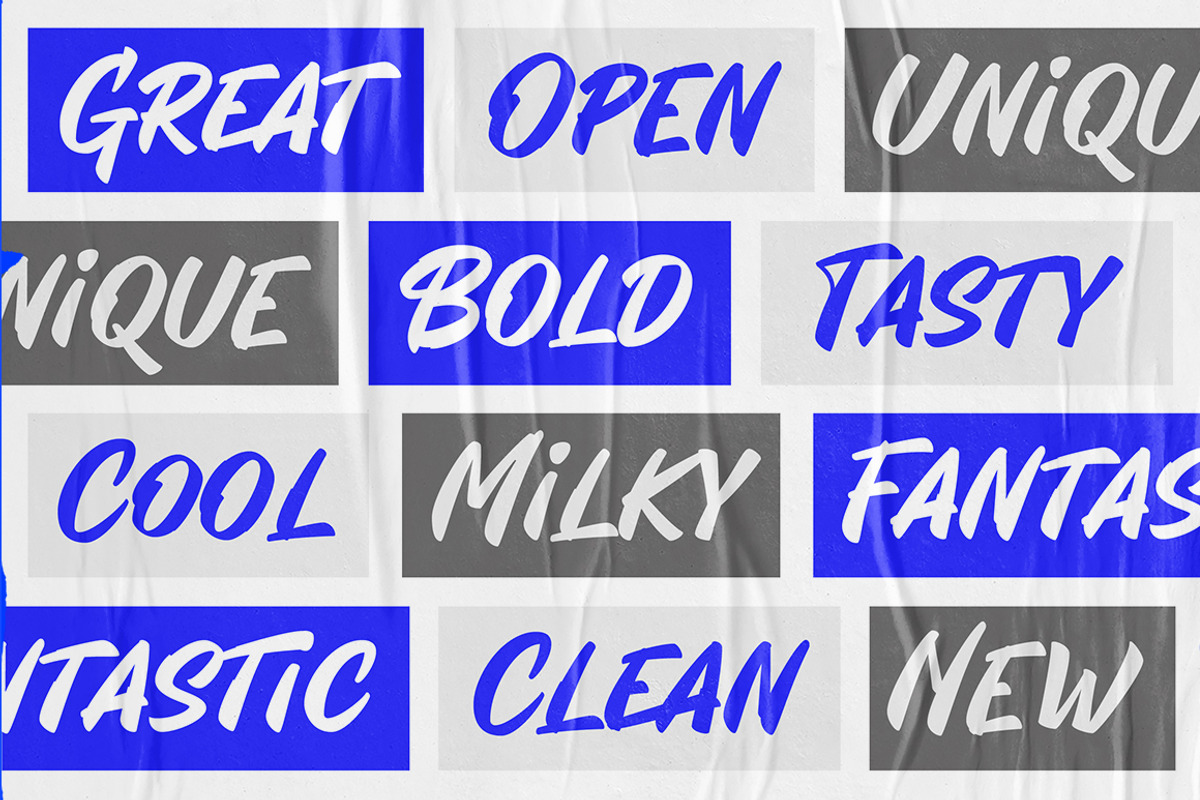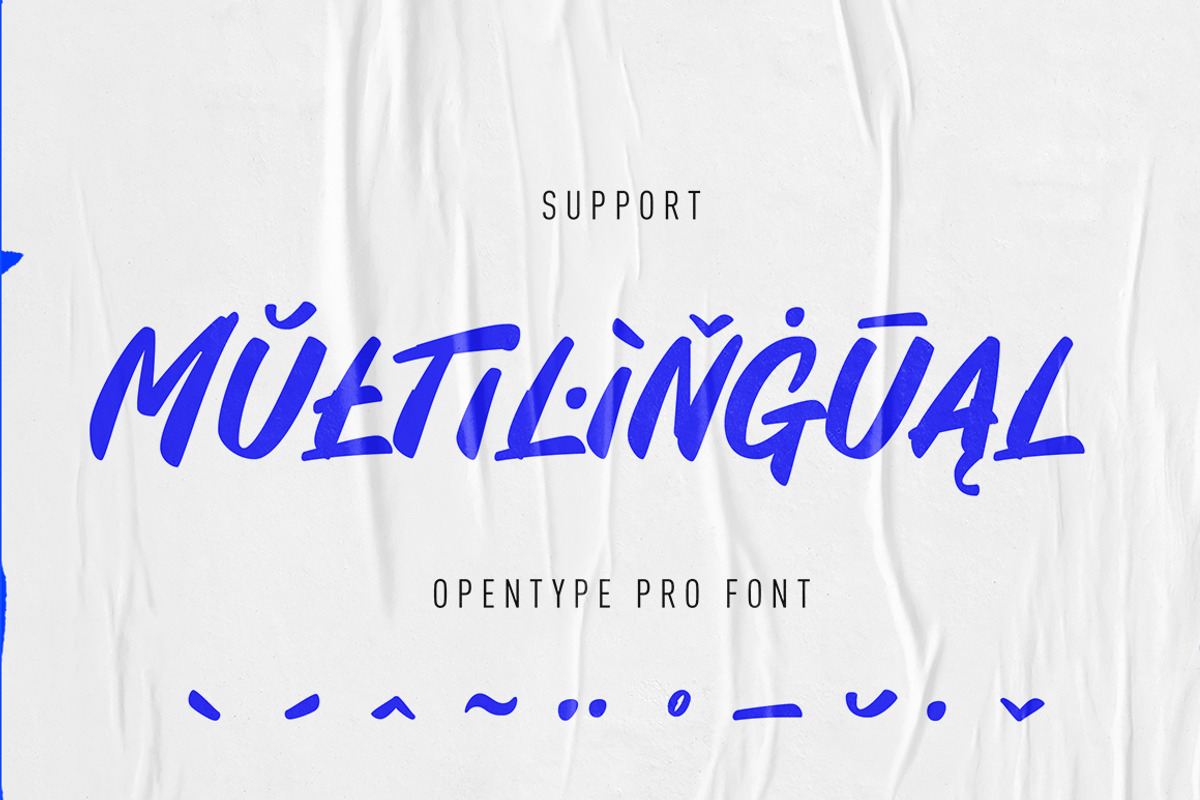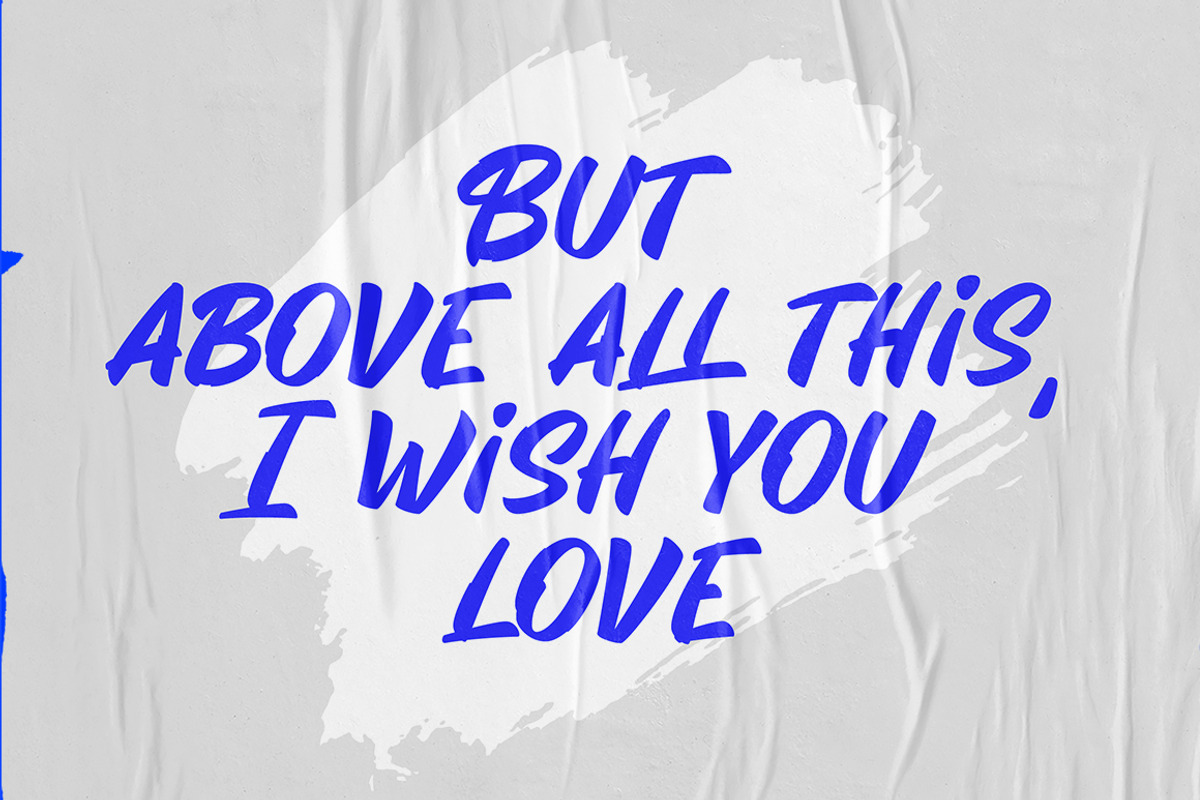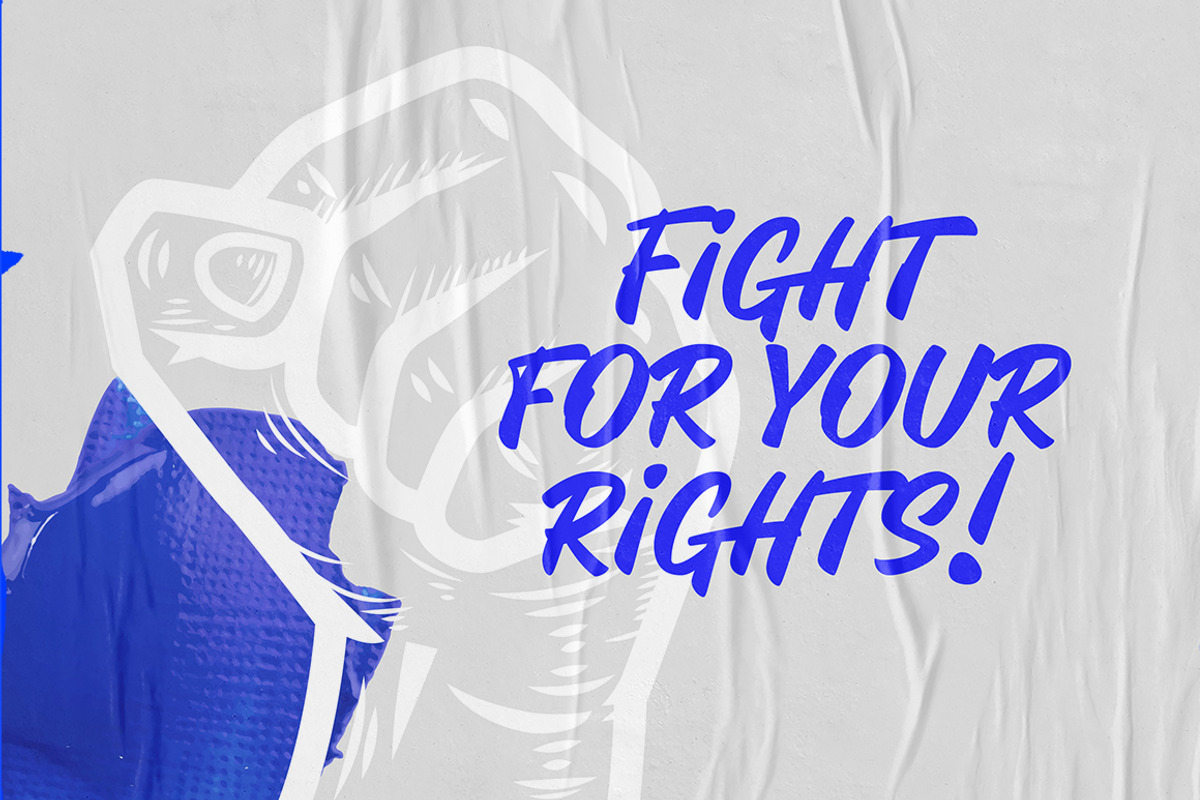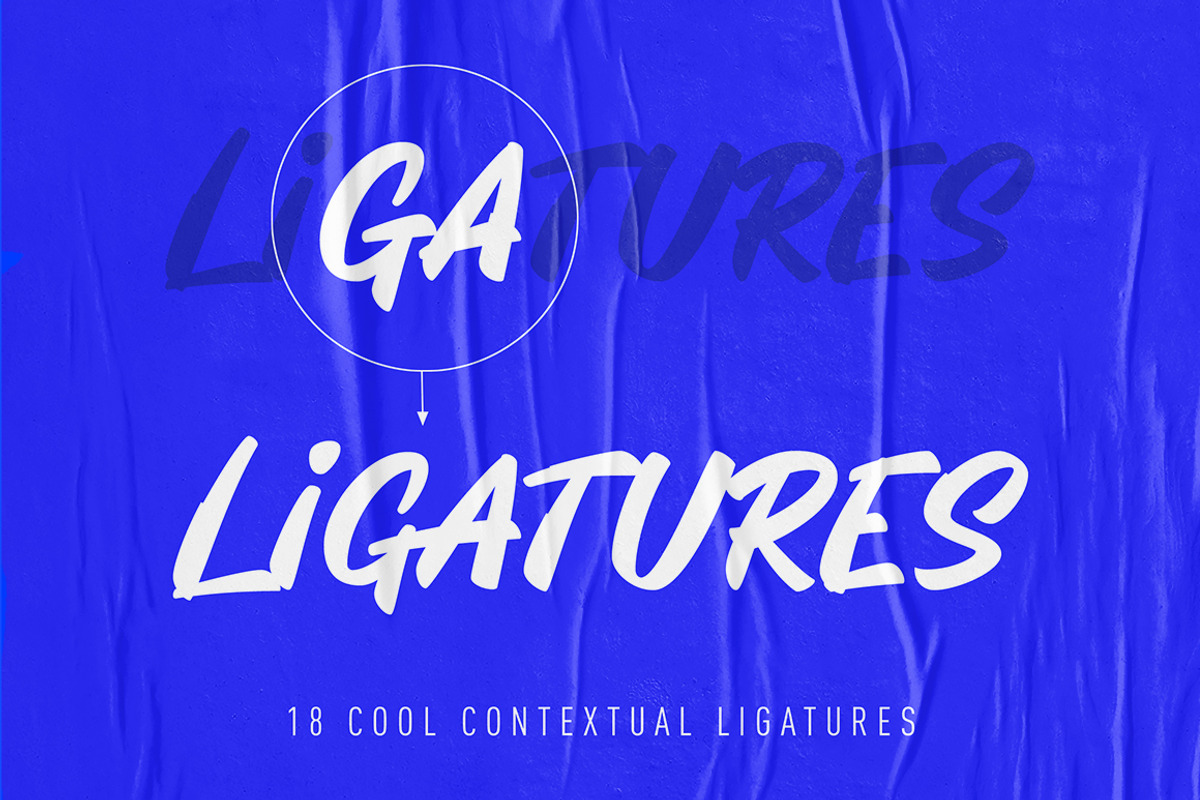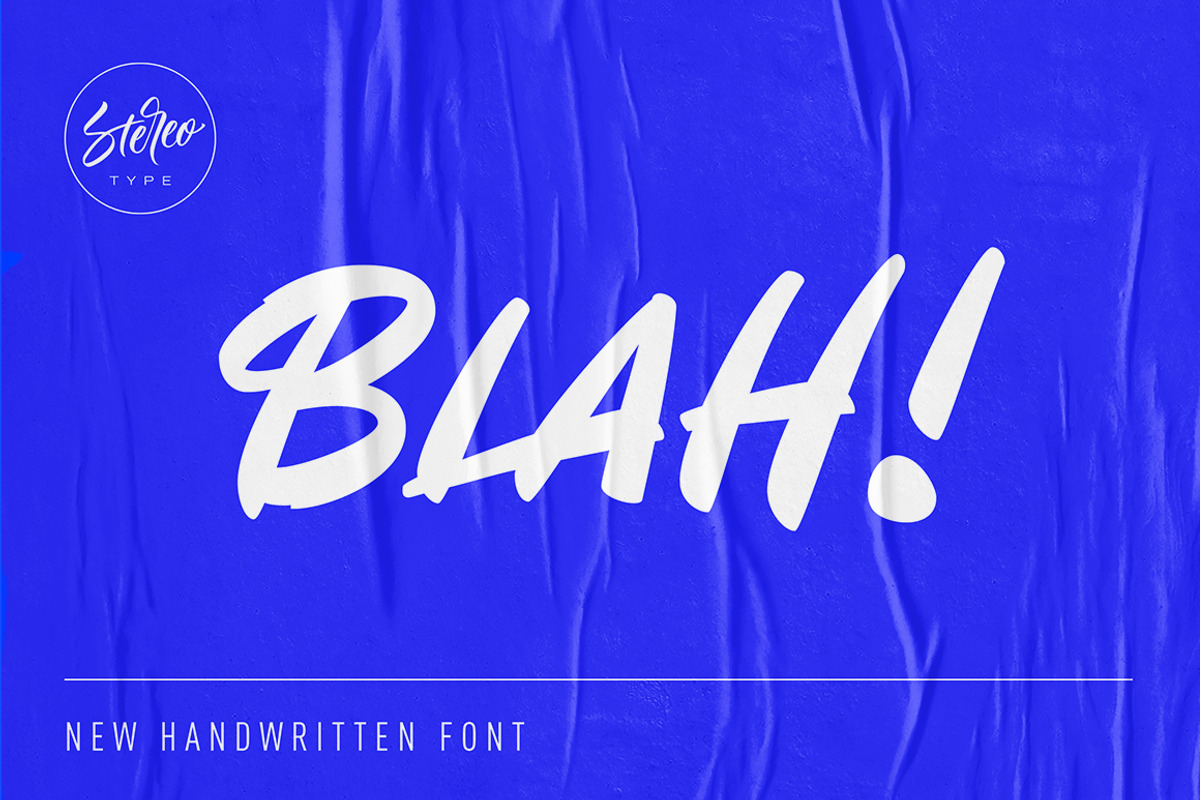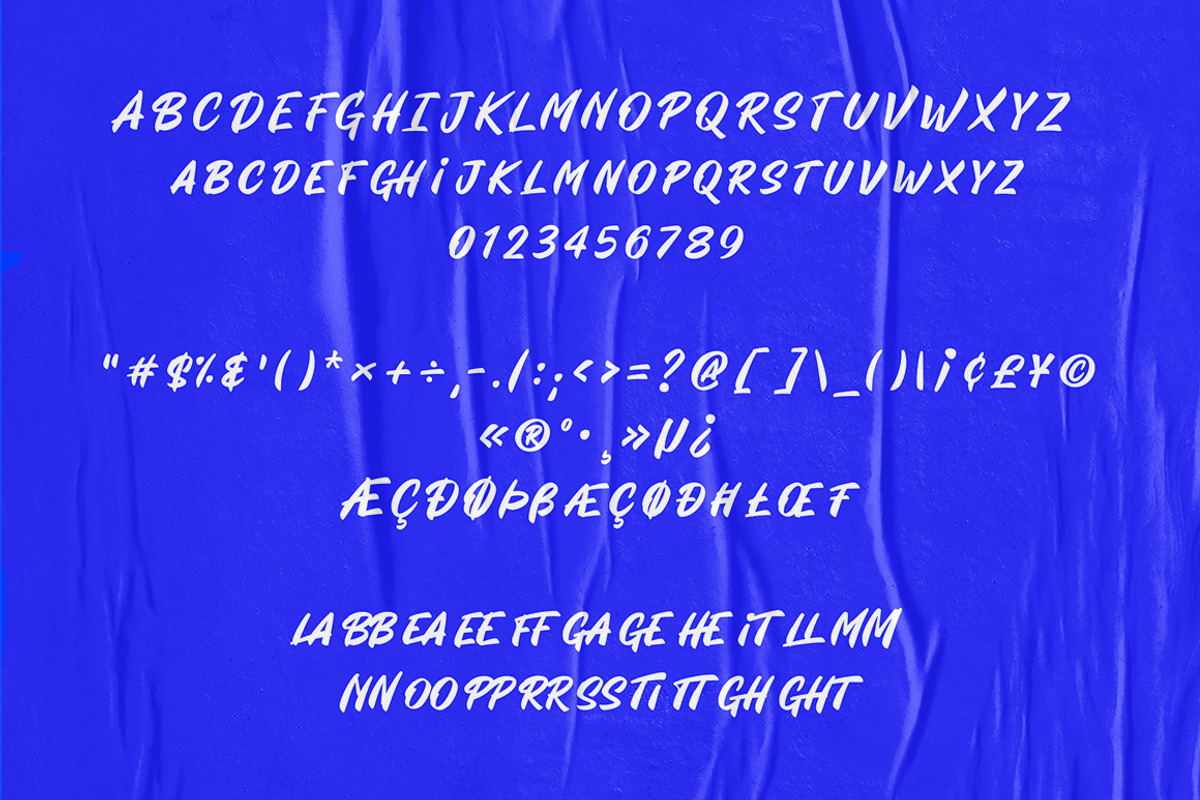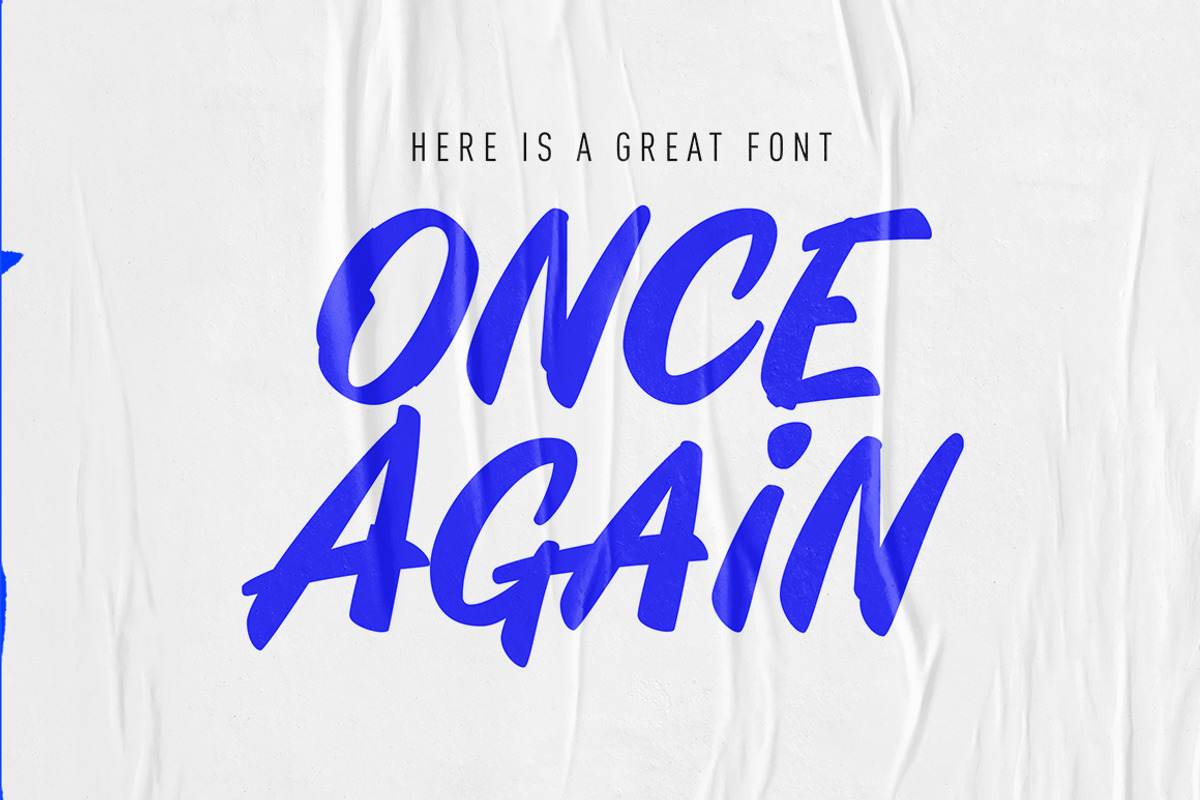
I'm happy to introduce this original font called BLAH!
This is a handmade display font with a bunch of ligatures, BLAH! is a great font if you need to create logos, greeting cards, posters, packaging, brochures, or anything you want. With it's modern cartoon style, you'll obtain this unique style you wanted.
About Ligatures
BLAH! is offered with 20 ligatures. Use this feature via the glyphs panel in Adobe apps.
BLAH! font includes:
- One single weight
- Uppercase AND lowercase glyphs. These are different glyphs.
- Punctuation, Symbols and Numbers
- 20 Ligatures
- Central, Western and South-Eastern European characters